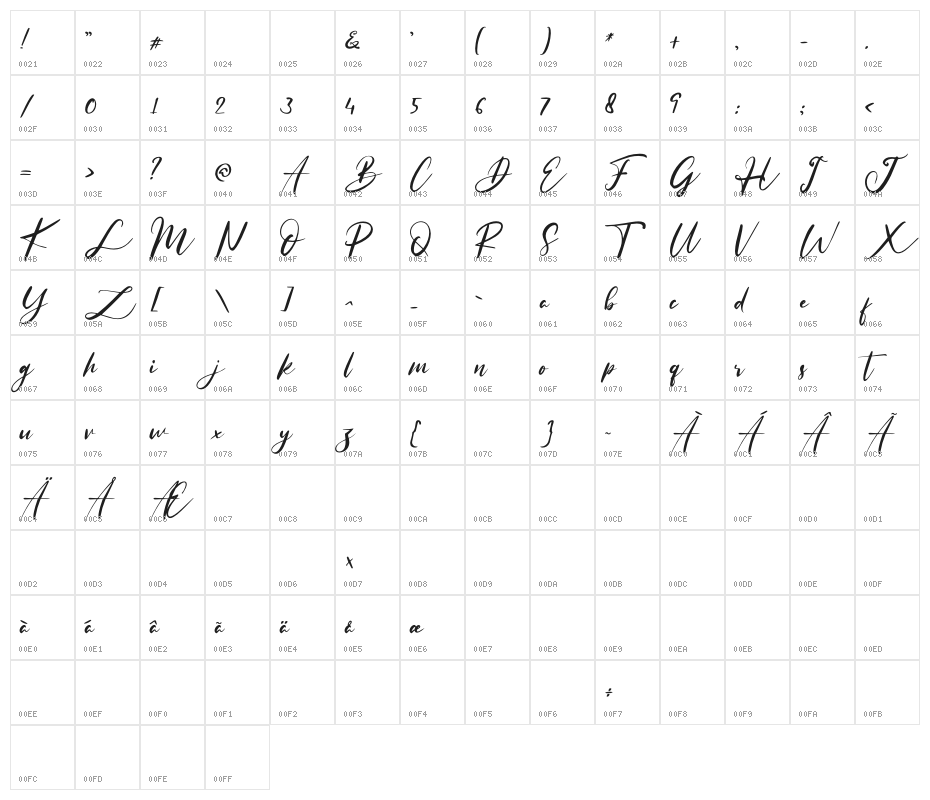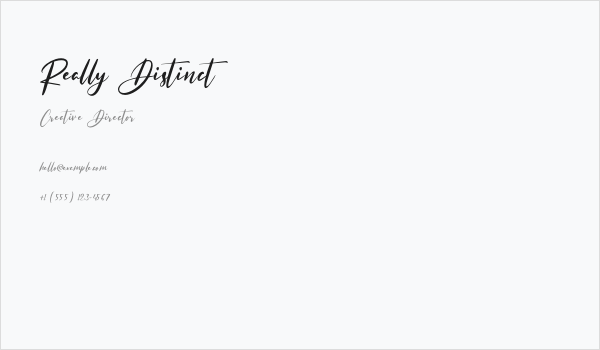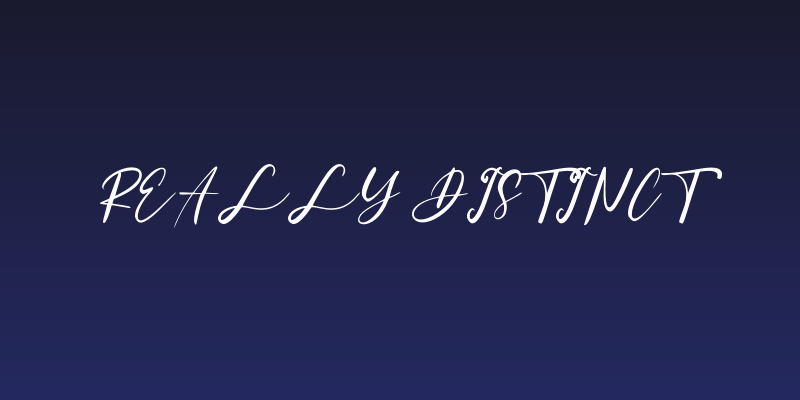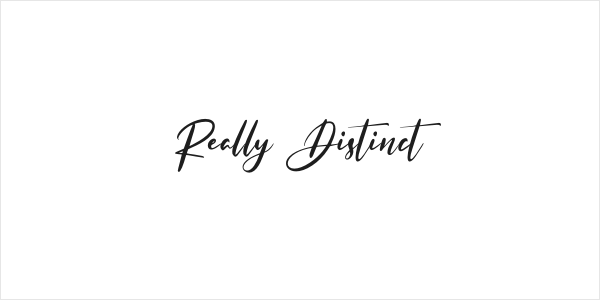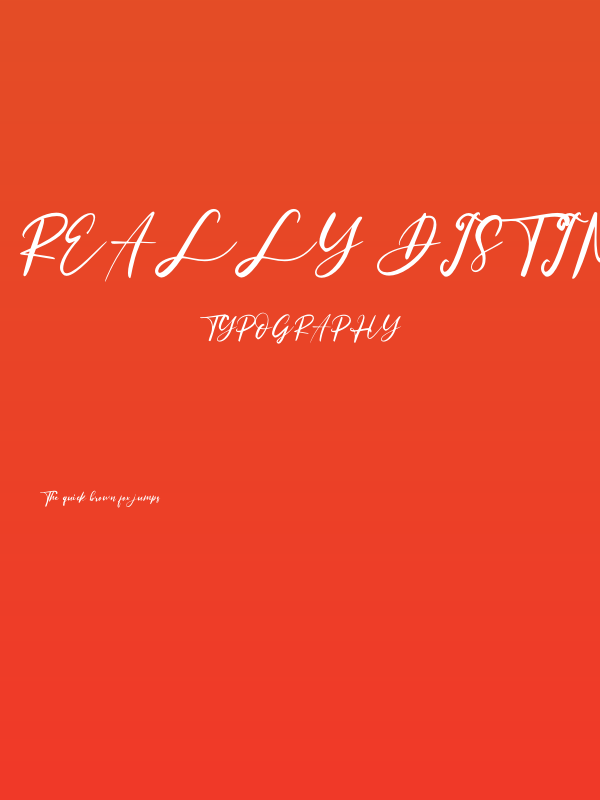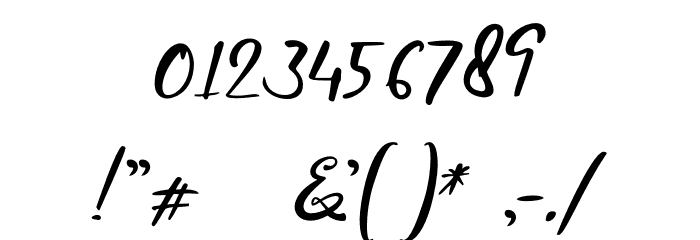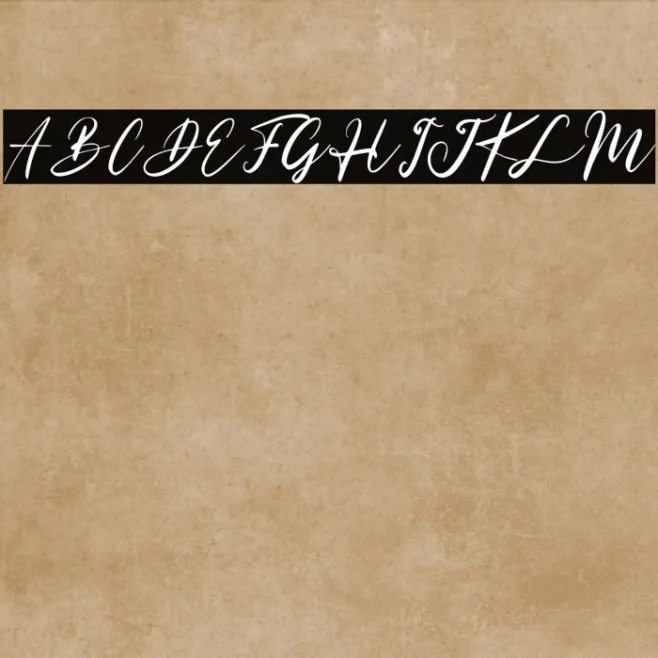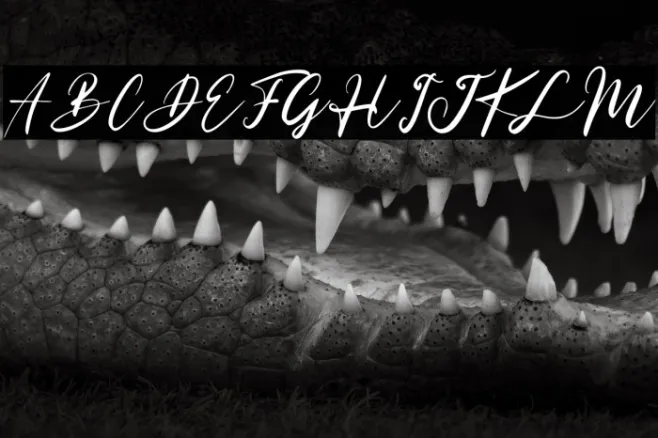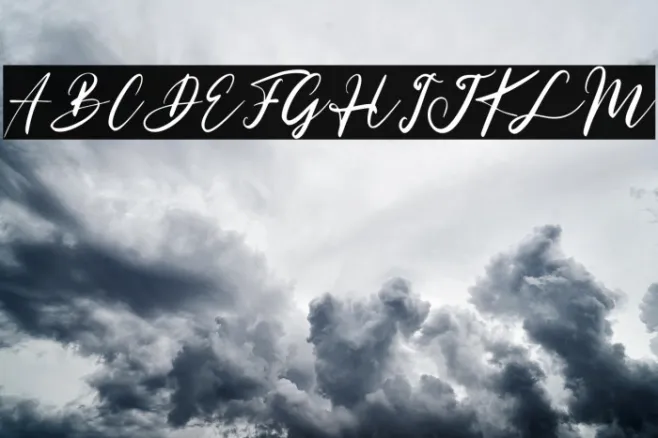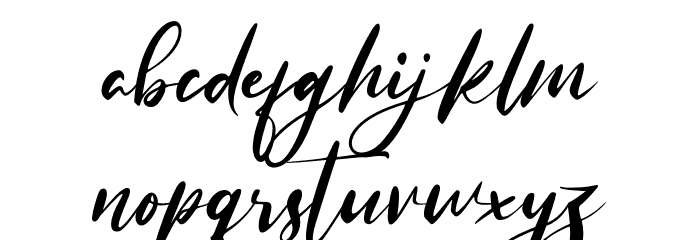
Really Distinct Font
Really Distinct Description
This font features an elegant script style with flowing, cursive characters that exude sophistication and grace. The uppercase letters are slightly more elongated, adding a touch of drama, while the lowercase letters maintain a consistent fluidity. The numerals and special characters are crafted with the same attention to detail, ensuring a cohesive look across all text. The strokes vary in thickness, providing a medium contrast that enhances readability without sacrificing style. This font is perfect for projects that require a personal, handwritten touch, such as invitations, greeting cards, or branding materials.
| Use Case | Invitations, Greeting cards, Branding |
| Proposed Projects | Ideal for wedding invitations, greeting cards, branding, and elegant logos. |